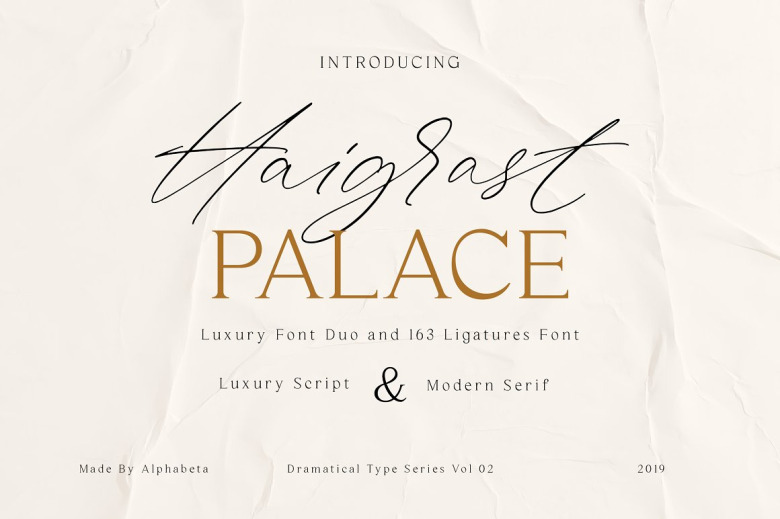
Haigrast Font Duo
Haigrast Font Duo is a perfectly paired, modern handwritten and serif duo, a free font duo inspired by a new modern calligraphy concept. Luxury script and modern serif is good combination to make your design look so dramatic. This font made with dramatical touch to give the exclusive quality. It also give contemporary touch to renewing the typographic style to simplify design.